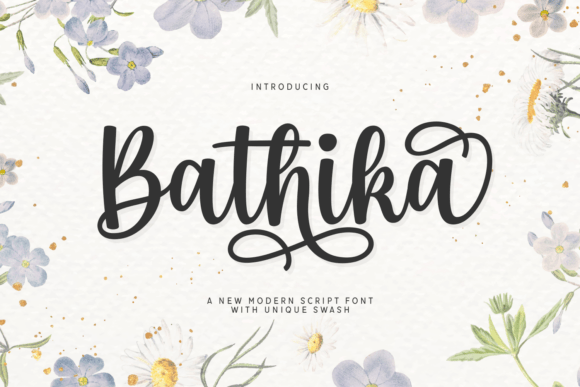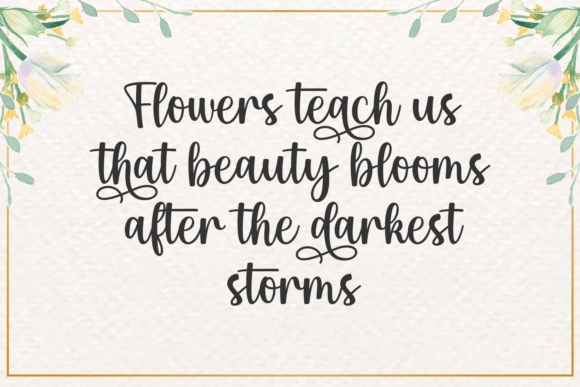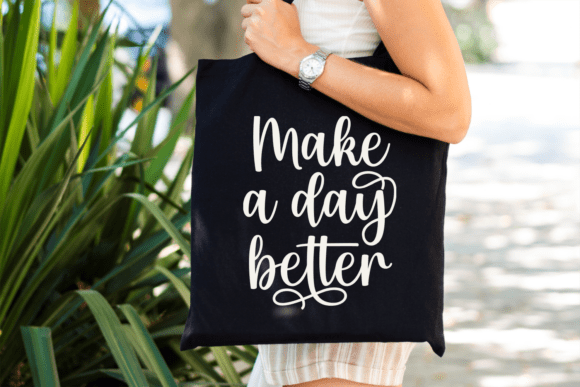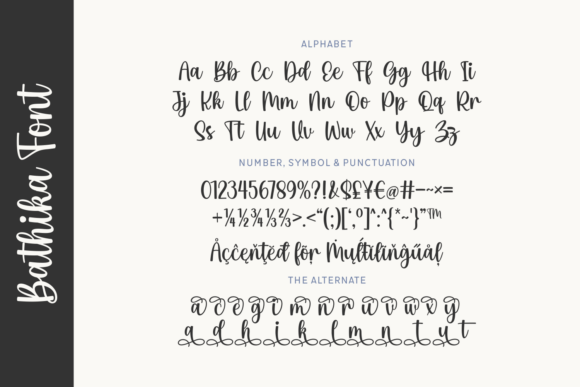
Bathika Font: Elegant Script with Flourishes for Wedding & Feminine Branding
About the Bathika Font
Step up your design game with Bathika Font, a font that exudes confidence and style. Bathika is a modern script font that beautifully marries elegance and whimsy through its stylish swashes and fluid strokes. Designed to make a visual impact while remaining highly readable, it’s perfect for invitations, floral branding, wedding stationery, product packaging, and romantic quotes. The heart of Bathika lies in its unique swash characters, which add a flourish of sophistication without overpowering the design—ideal for projects that call for both charm and clarity.